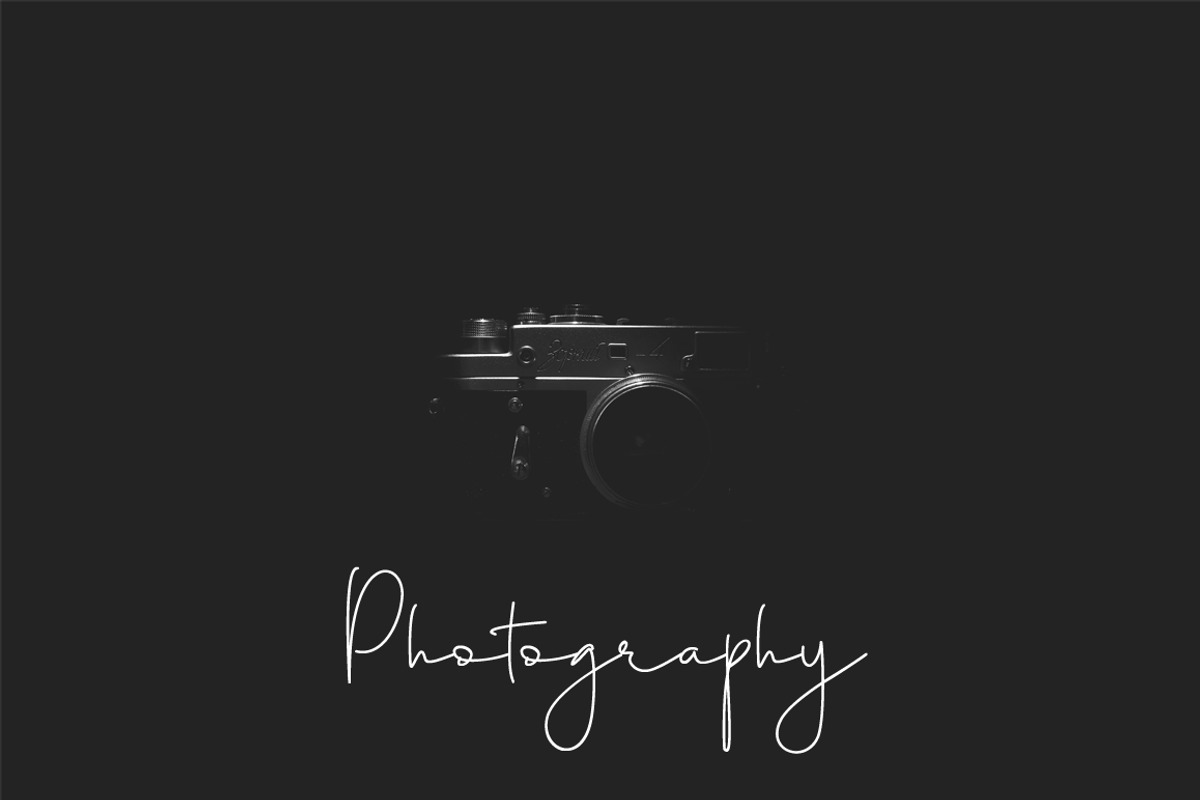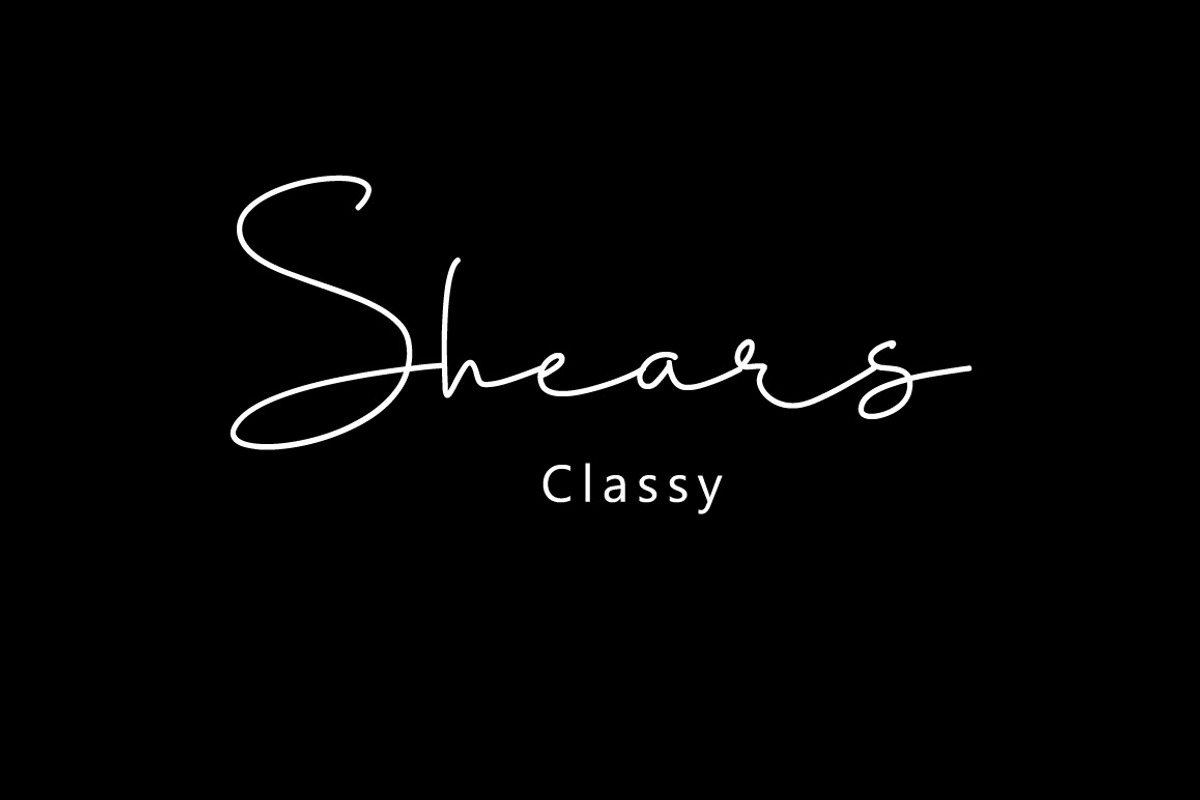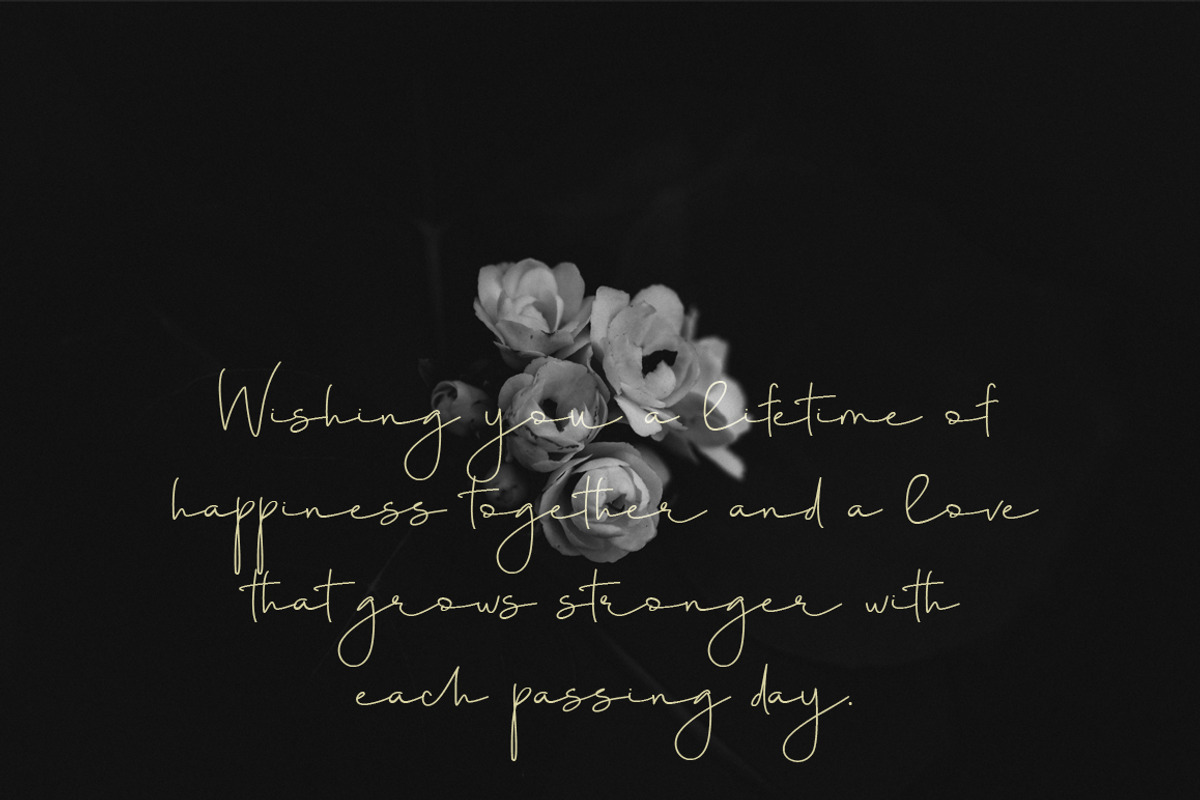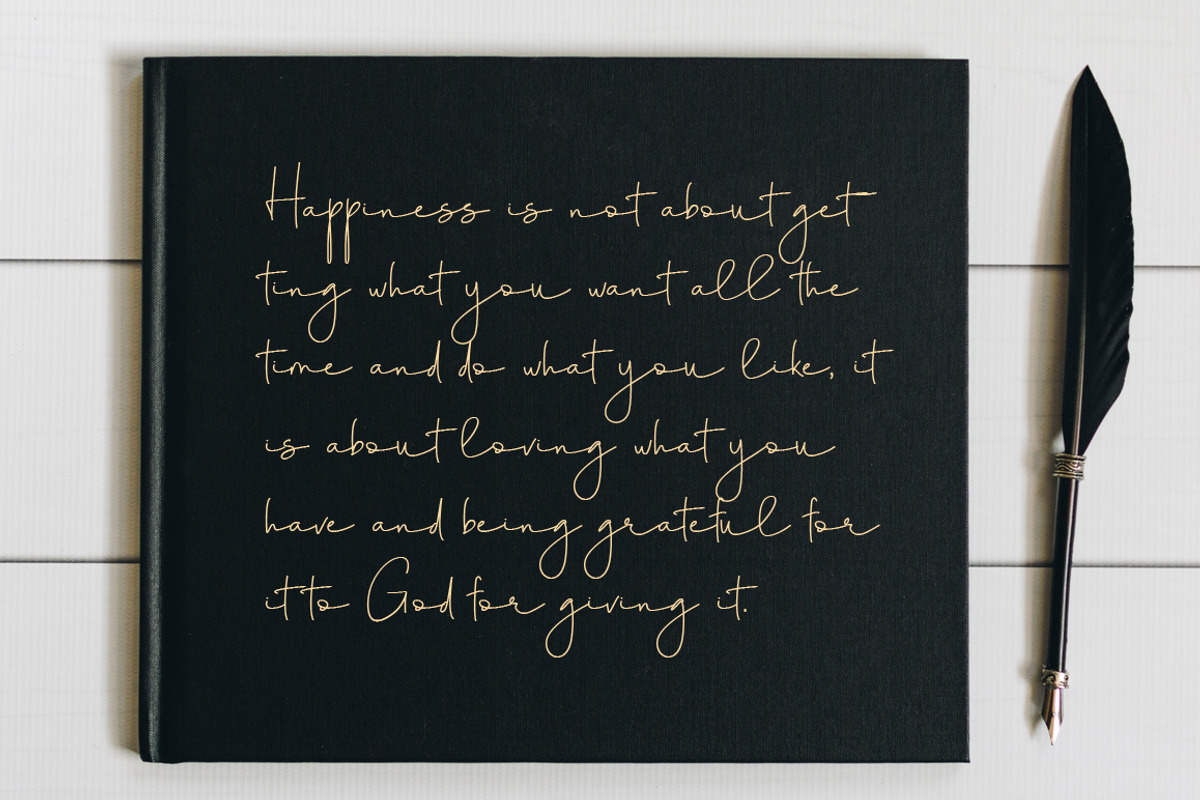
Shears Classy Font
The Shears is a natural handwriting font, Inspired by ancient handwriting with simple and elegant, It's interesting to be applied to your various occupations. Shears also includes full set of uppercase and lowercase letters, symbols, numerals, ligatures, and punctuation.
Why Shears Classy Font is worth a look
Shears Classy Font by Face Lab fits naturally into Branding, posters, packaging, typography.